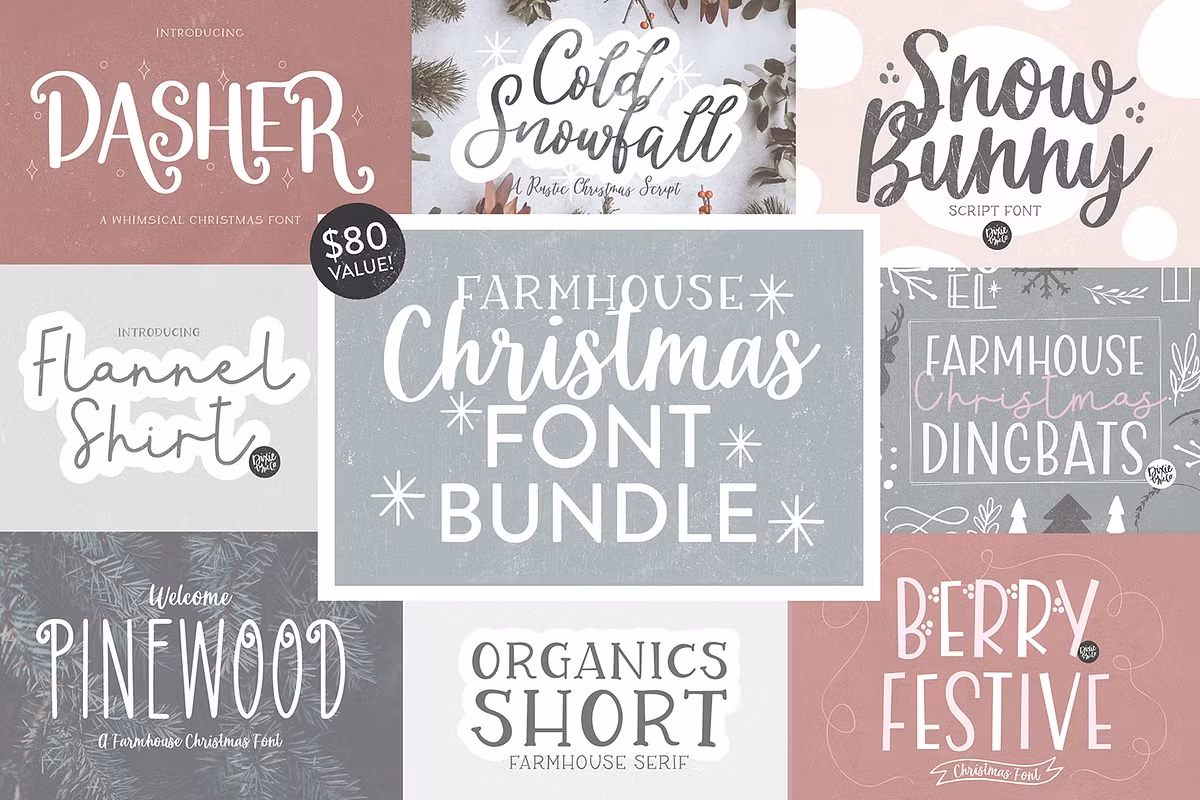
Add a festive touch to your designs with Farmhouse Christmas Font Bundle Free Download — a collection of fonts perfect for all your holiday projects. Whether you’re designing Christmas cards, invitations, gift tags, or social media posts, this bundle offers everything you need to create beautiful, rustic-themed designs.
The bundle includes a variety of fonts, each with its own personality. From elegant scripts to bold, rustic serif fonts, Farmhouse Christmas brings charm and warmth to your holiday typography. It includes uppercase and lowercase letters, punctuation, numerals, and multilingual support, providing flexibility for all your creative needs.